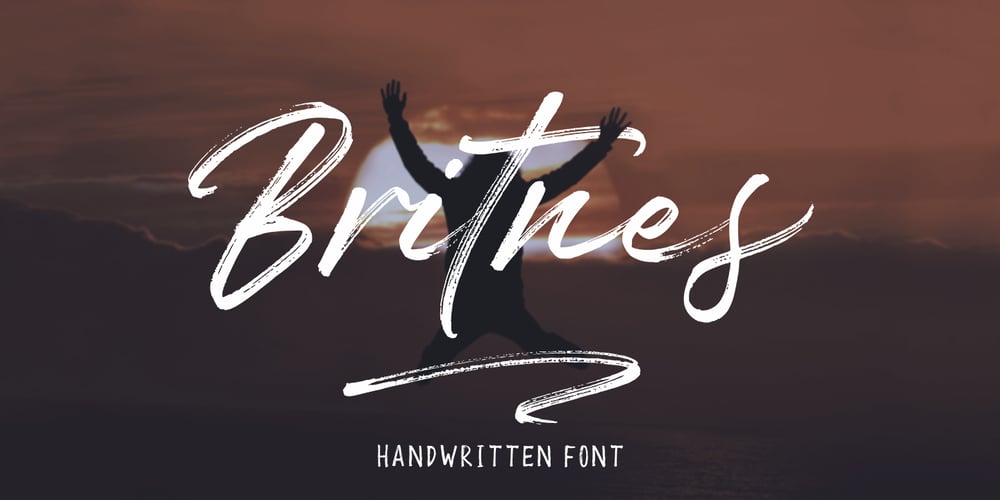
Britnes Font Family was designed by Zikrillah and published by Suza Studio. Britnes contains 2 styles and family package options. Britnes is a textured brush font, a contemporary approach to design, created naturally with irregular baselines. Suitable for use in title designs. Such as clothing, invitations, book titles, stationery designs, quotes, branding, logos, greeting cards, t-shirts, packaging designs, posters, and more. Britnes includes a complete set of upper and lowercase letters, as well as multi-language support, numbers, punctuation, Alternatives, ligatures and Underlines. Thank you so much for looking up and letting me know if you have any questions.